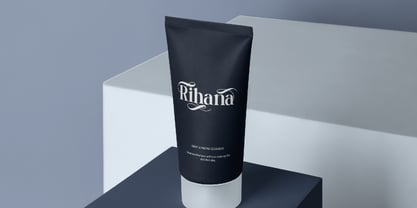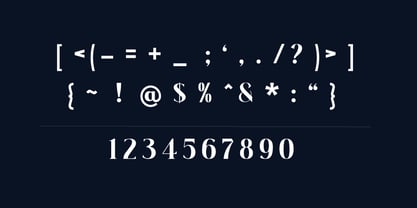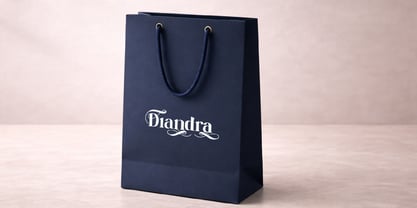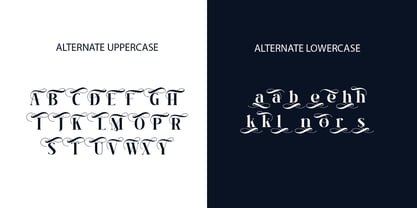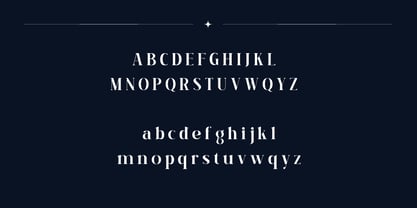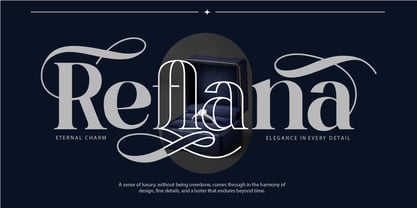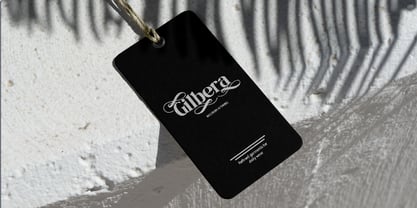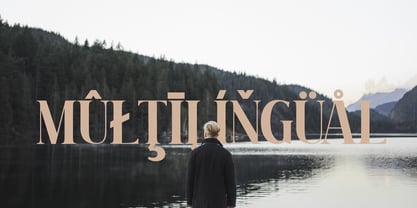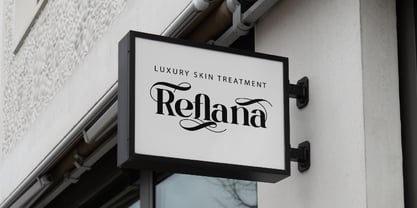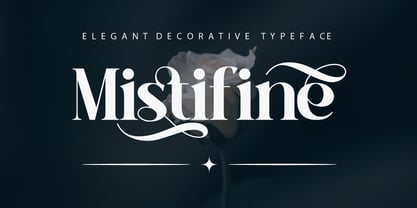
Mistifine
Mistifine is an elegant decorative serif typeface designed to infuse your projects with romance and sophistication. Its graceful curves, refined contrast, and flowing swashes provide a luxurious touch while ensuring excellent readability. Built on a classic high-contrast serif structure, Mistifine merges timeless letterforms with expressive decorative details. A rich array of ligatures, stylistic alternates, and ornamental swashes allows for the creation of stunning typography, whether you're aiming for a subtle elegant accent or a more dramatic and distinctive appearance. Mistifine features both uppercase and lowercase letters, multilingual support, standard and discretionary ligatures, and a diverse selection of alternate characters. These OpenType features empower you to design polished logos, wedding invitations, editorial headlines, packaging, and other projects that demand a premium and artistic aesthetic.